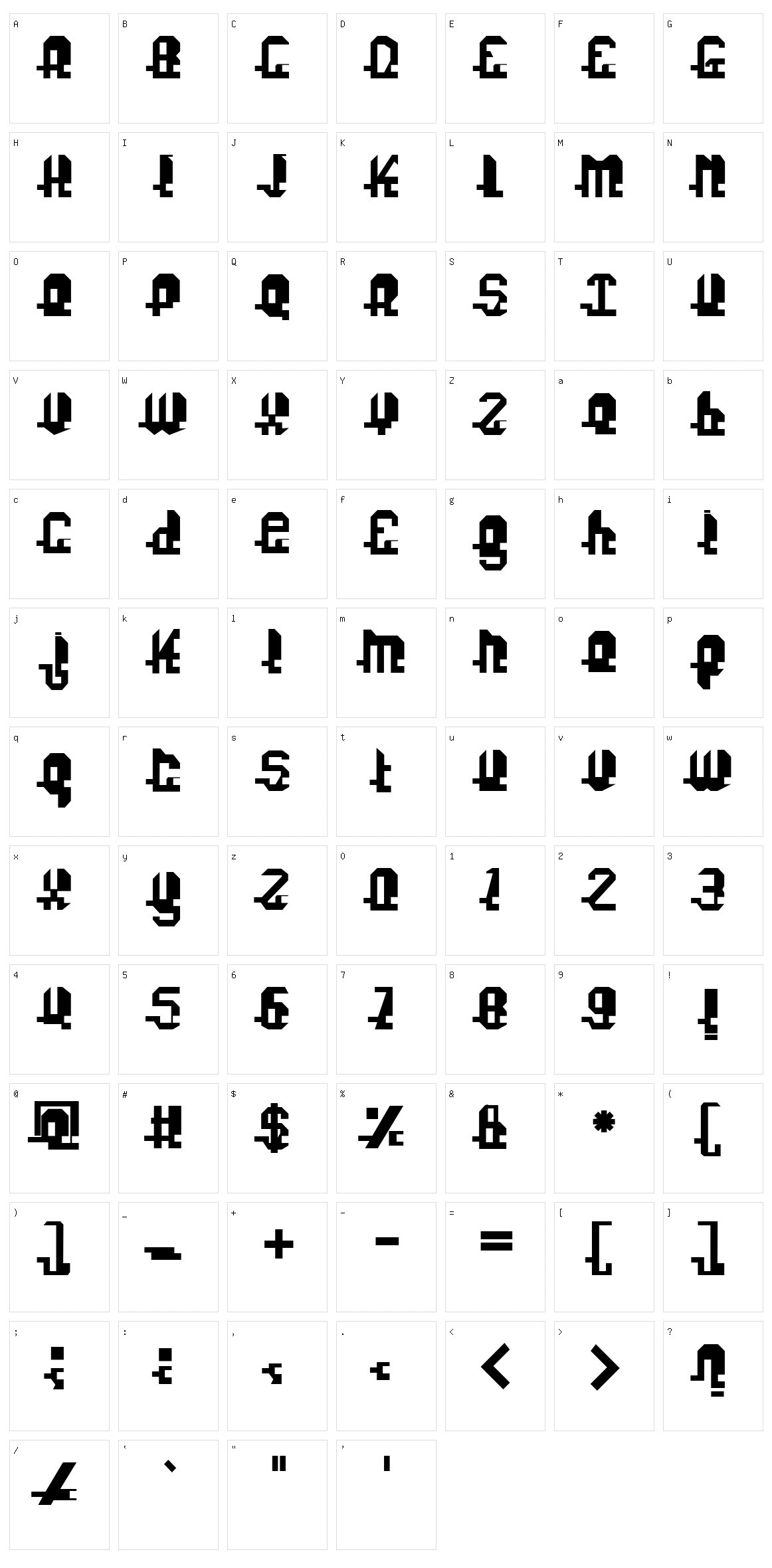
The free font Fonuzzle is carefully designed by Pixeluigi, showcasing a thoughtful balance of creativity and usability and falls under the Square font style. When you download the ZIP file, it contains only 12.7 KB of font files, making it lightweight and quick to download. Please review the license details below to understand permitted usage and distribution rights. If license information is not available, we recommend using this font for personal projects only or contacting the author directly for commercial usage permissions.